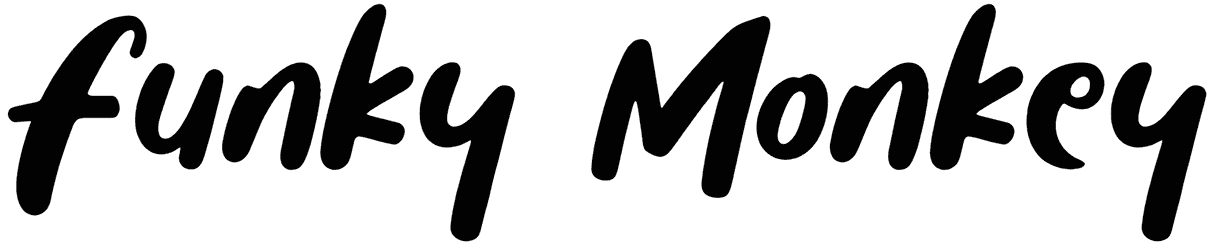
Funky Monkey Font
Are you looking for funny lettering that catches the viewer’s attention at once? Well, the Funky Monkey font is an alluring point, while its textures have been adjusted to kids’ graphics in many zones, and this trait makes this script font demanding for use on comics, stickers, funnies, postcards, etc.